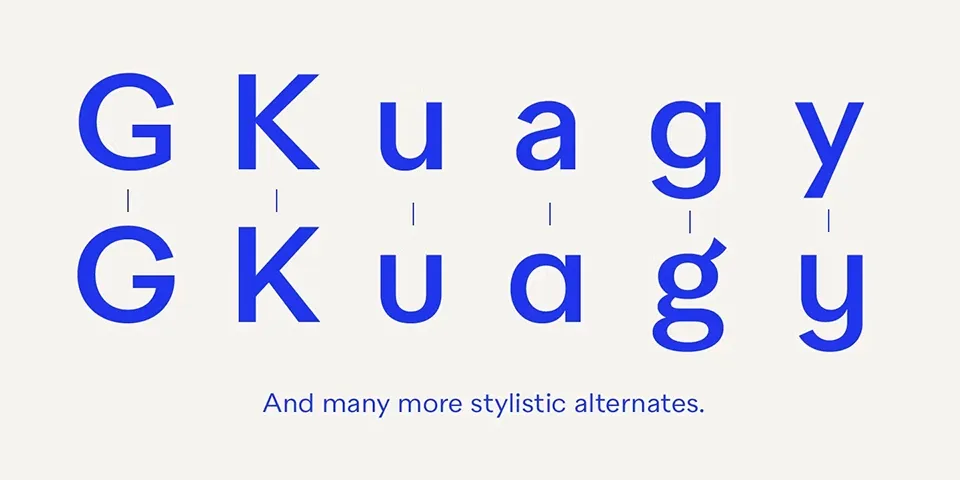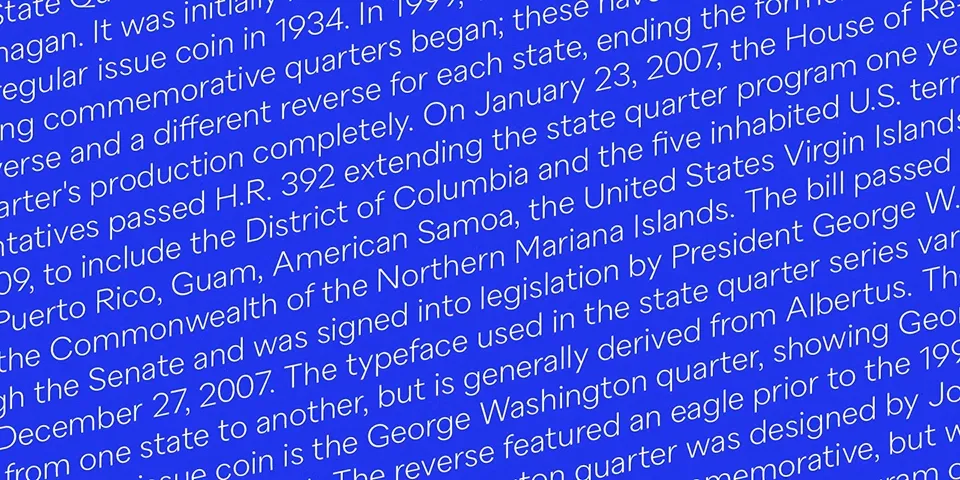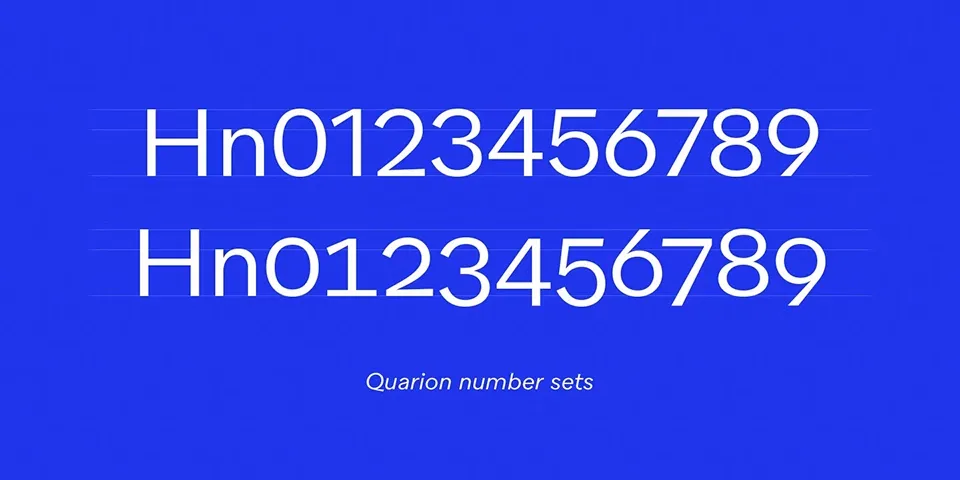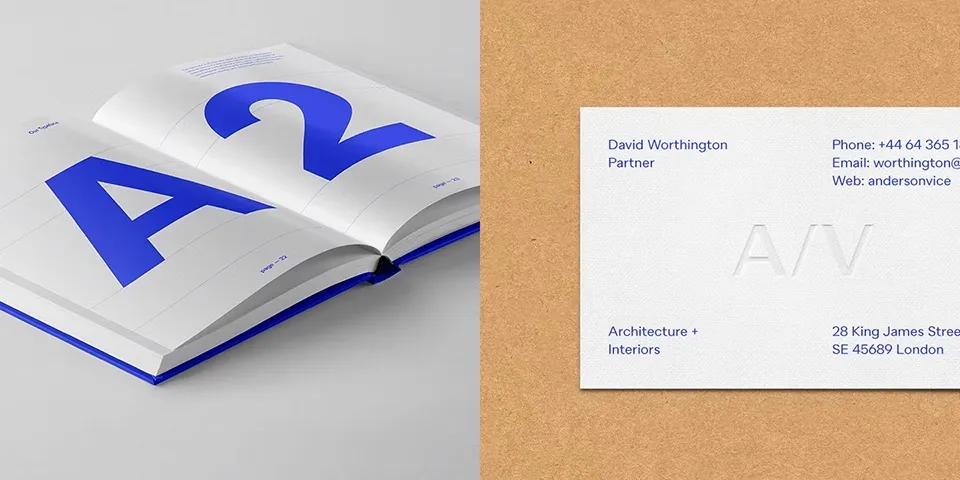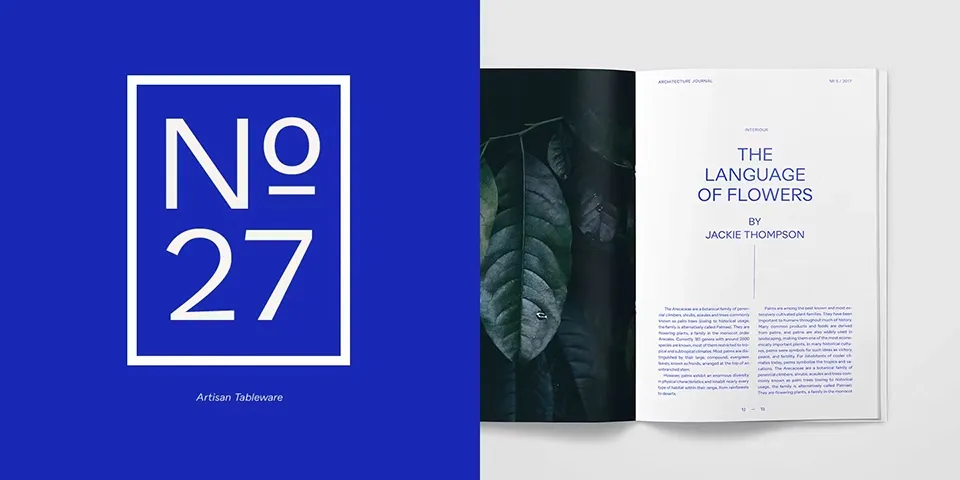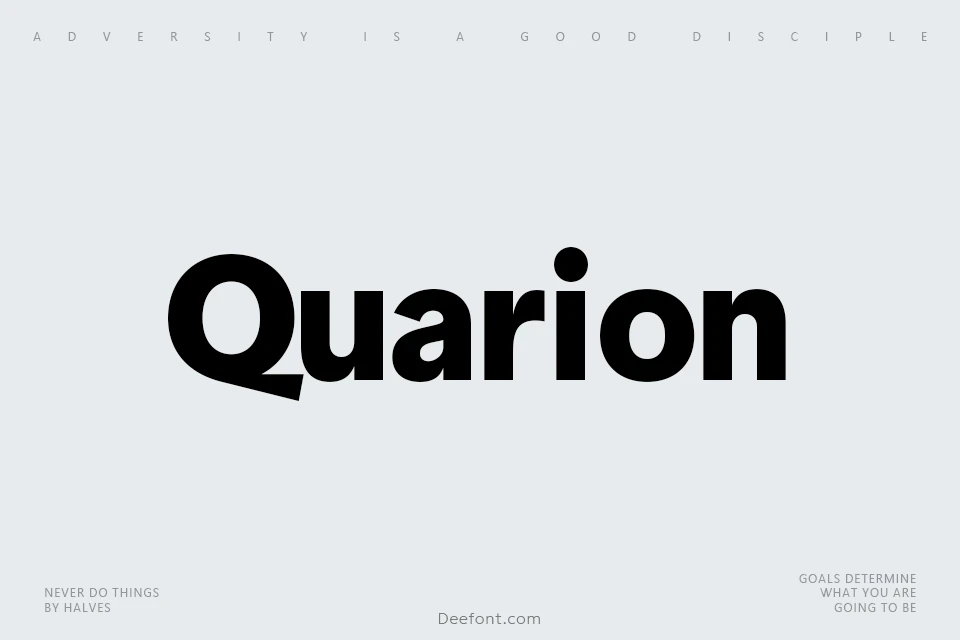
Quarion Font Family
Quarion Font Family is a clean, neo-humanist sans serif with a contemporary geometric approach. Designed by René Bieder, it draws inspiration from early 20th-century geometric typefaces such as Futura and Neuzeit Grotesk, blending circular elements with medium stroke contrast. This results in a versatile and robust typeface, ideal for both analog and digital applications, offering sophistication, consistency, and improved legibility.